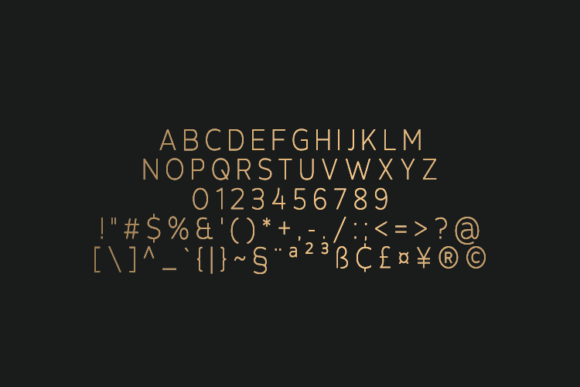
Introduction to Phenom Light Font
You’ve spent hours brainstorming ideas, pouring over sketches, and refining your concept. Finally, the moment of truth arrives – it’s time to bring your creative project to life with the perfect typography. That’s where the Phenom Light Font comes in, a game-changing design resource that elevates your work to the next level.
This high-quality sans serif font boasts a unique blend of smooth and sharp lines, making it the perfect addition to any design project. With its perfectly balanced aesthetic, you can trust that the Phenom Light Font will complement your work beautifully, whether you’re working on a personal or professional project.
Key Features of Phenom Light Font
- High-quality design resource suitable for various creative projects, including digital art and graphic design.
- Includes 100 glyphs, including letters, numbers, and symbols, making it a versatile font for creative projects.
- Designed with a clean and modern aesthetic, perfect for creating visually appealing designs and artwork.
Honest Review: Phenom Light Font
As a designer, I’m always on the lookout for high-quality fonts that can elevate my creative projects. The Phenom Light Font has been a game-changer for me, and I’m excited to share my honest review with you.
What works well: ✨ The font is incredibly versatile and can be used for a wide range of projects, from branding and logos to digital products and websites. The light weight gives it a sleek and modern feel that’s perfect for creative projects. Plus, it’s free to download, making it an excellent design resource for anyone on a budget.
Any limitations: ⚠️ While the font is generally high quality, I’ve noticed that it can be a bit too light in certain situations, making it difficult to read at smaller sizes. Additionally, the font family is relatively small, so it may not be suitable for large-scale projects.
Overall impression: I’m thoroughly impressed with the Phenom Light Font and would highly recommend it to anyone looking for a high-quality font for their creative projects. With its versatility, sleek design, and transparent background, it’s a must-have design resource for any designer.
Using Phenom Light Font in Creative Projects
The Phenom Light Font is a versatile design resource that can be used in a variety of creative projects. Whether you’re working on a logo, brochure, or social media graphics, this font is sure to add a touch of sophistication and elegance.
Tips for Getting the Most Out of Phenom Light Font
To get the most out of the Phenom Light Font, be sure to use it with a transparent background to really make it pop. You can also pair it with other design elements, such as icons or graphics, to create a cohesive look.
The Phenom Light Font is commonly used in a variety of design contexts, including: